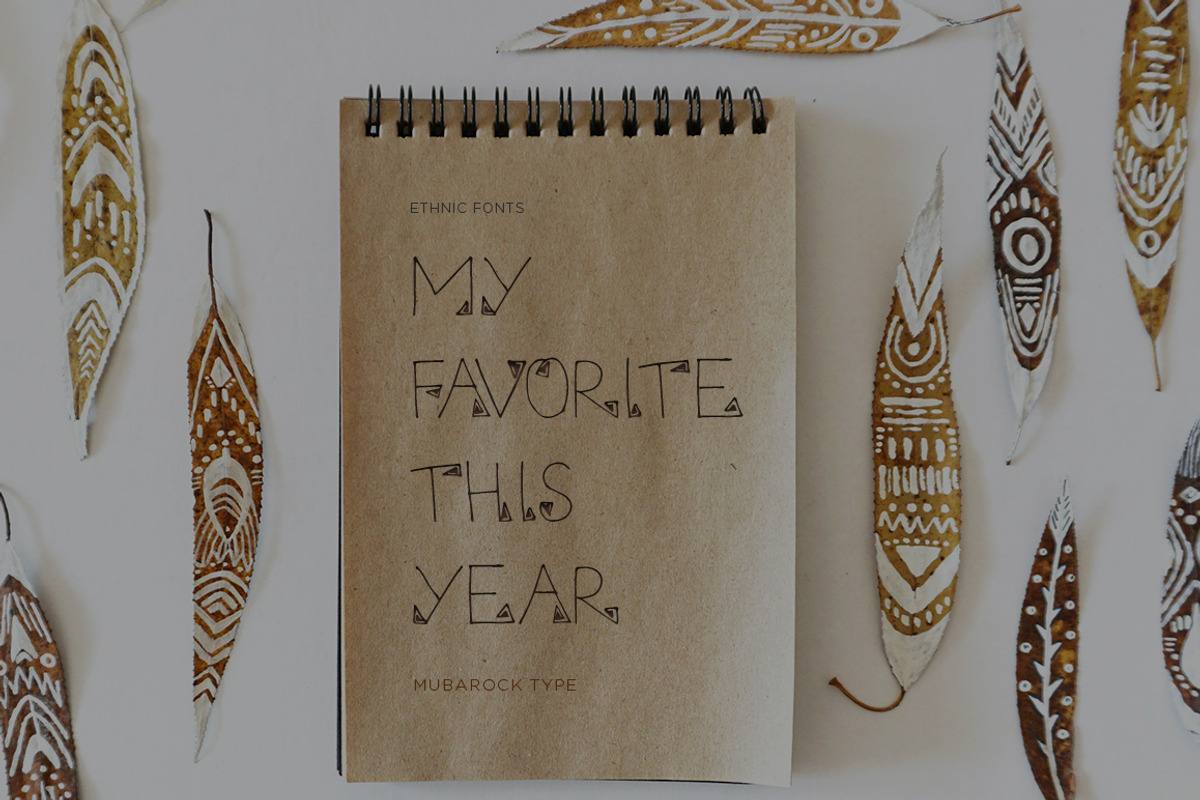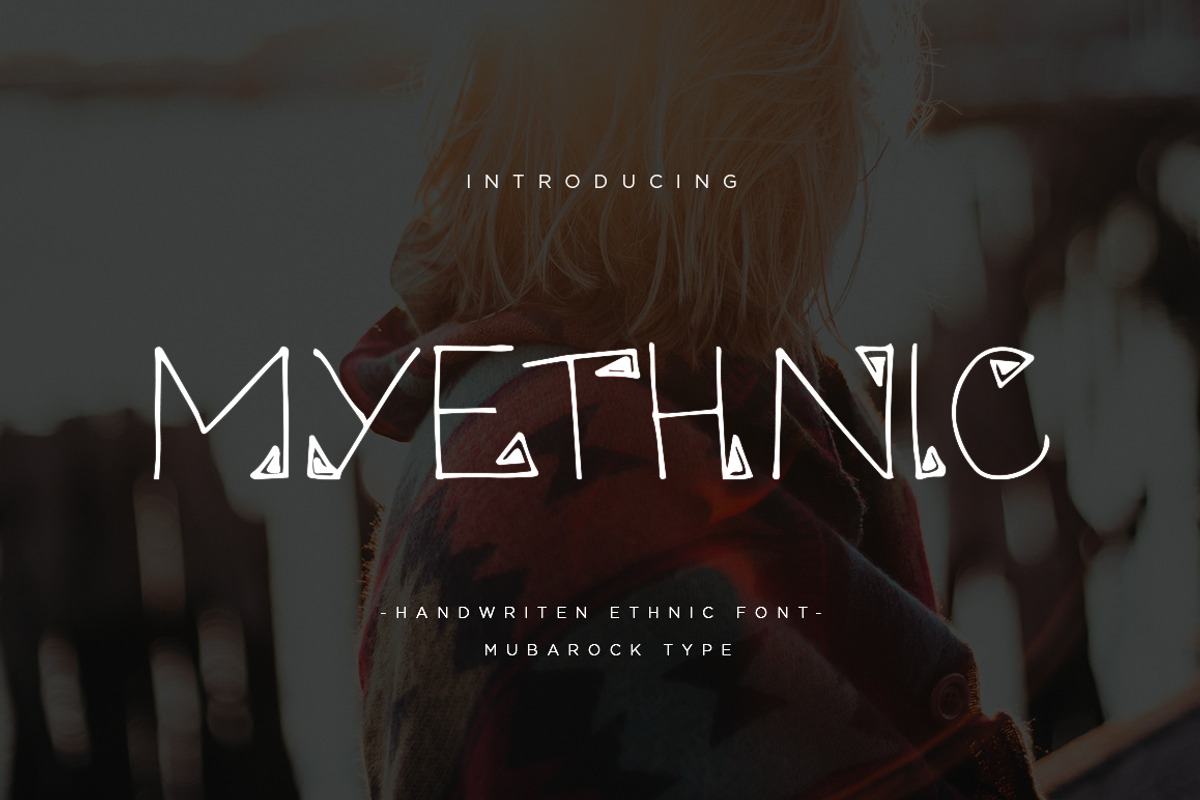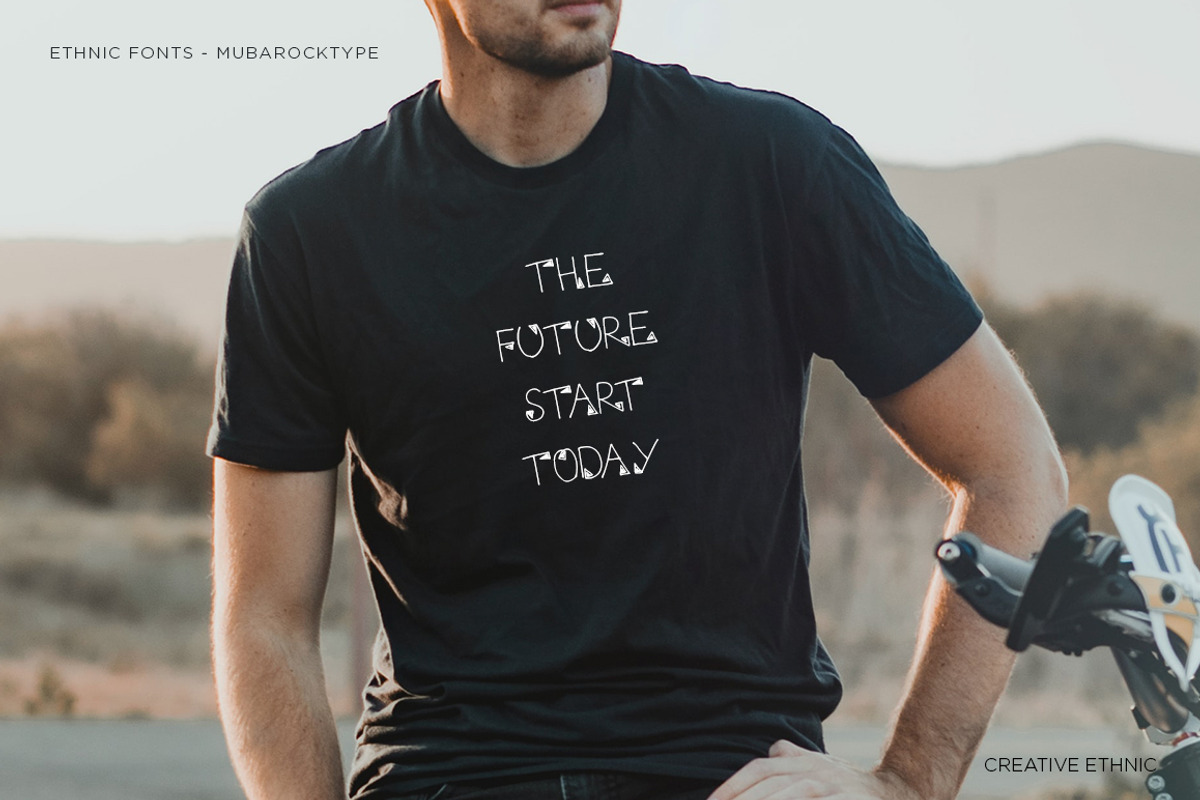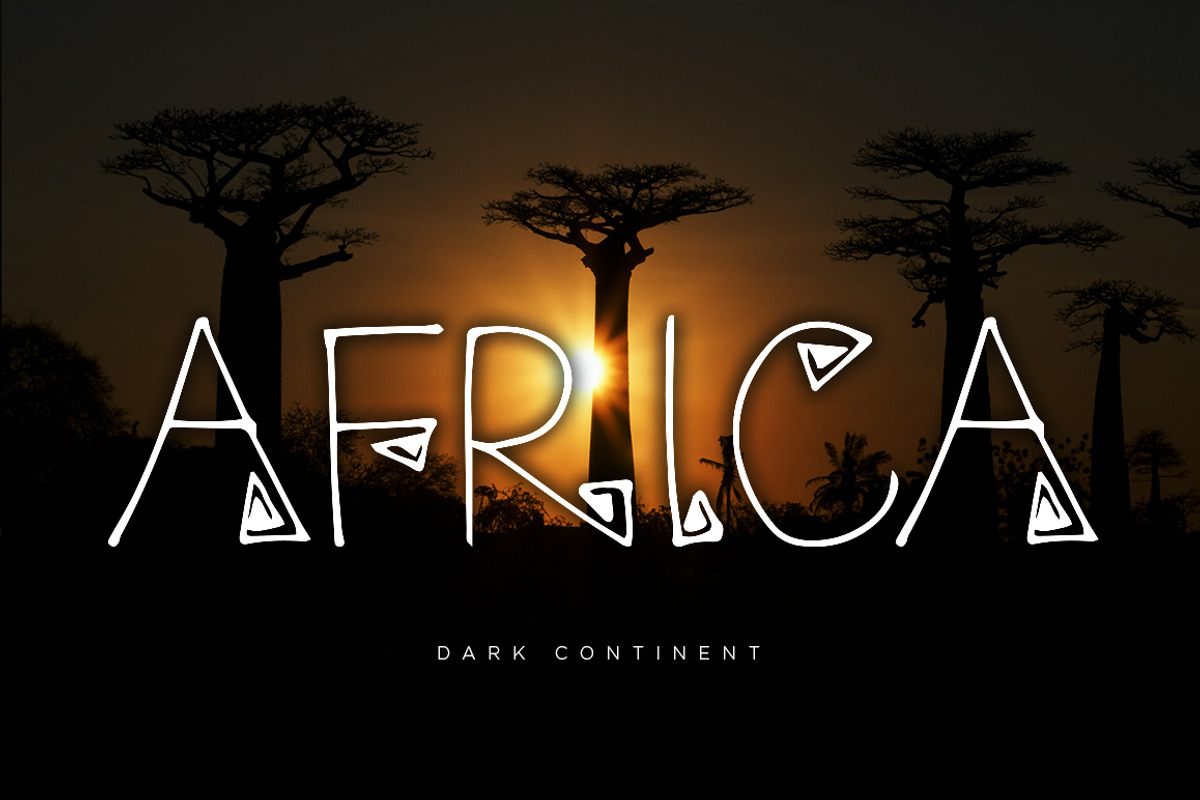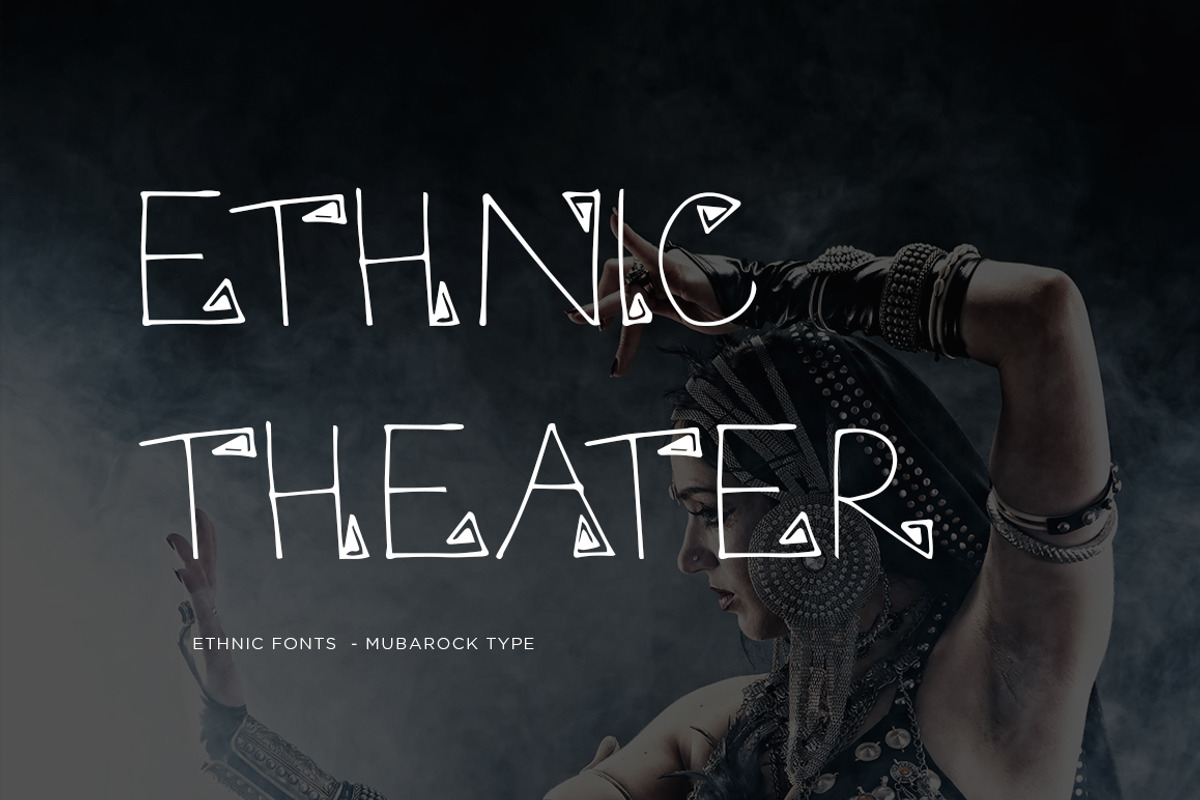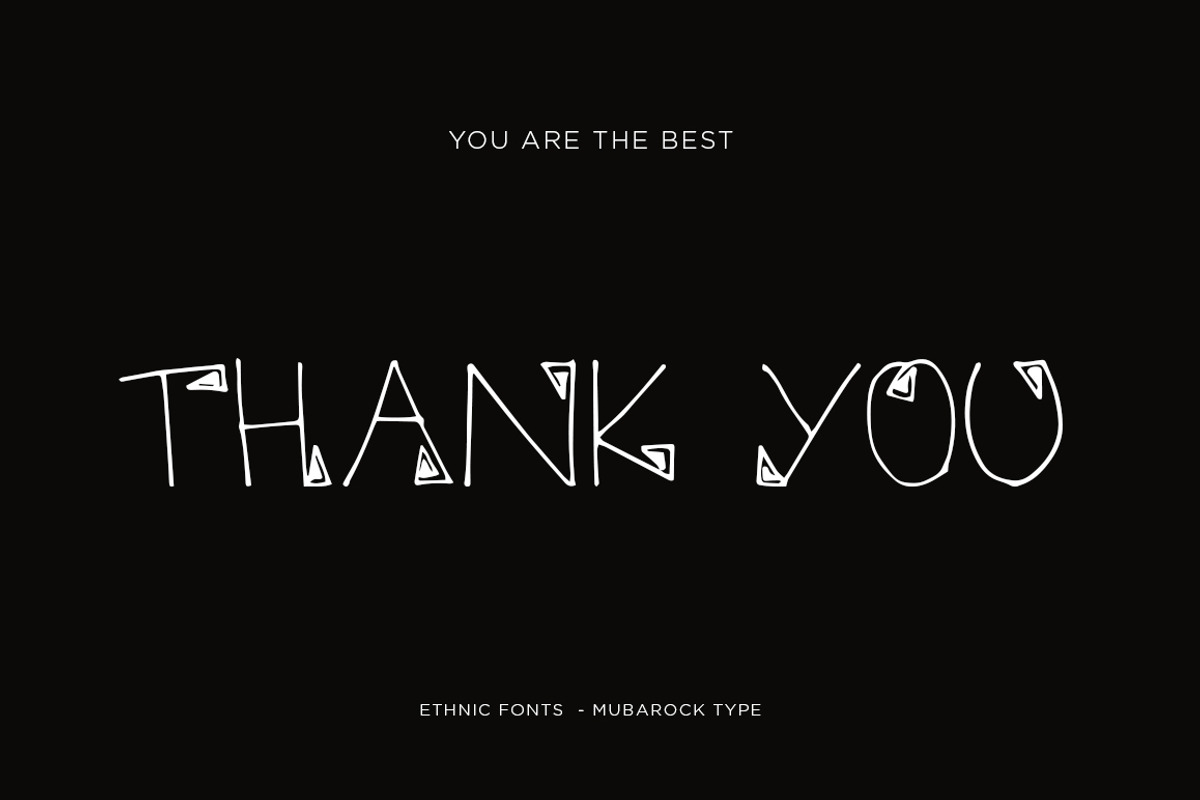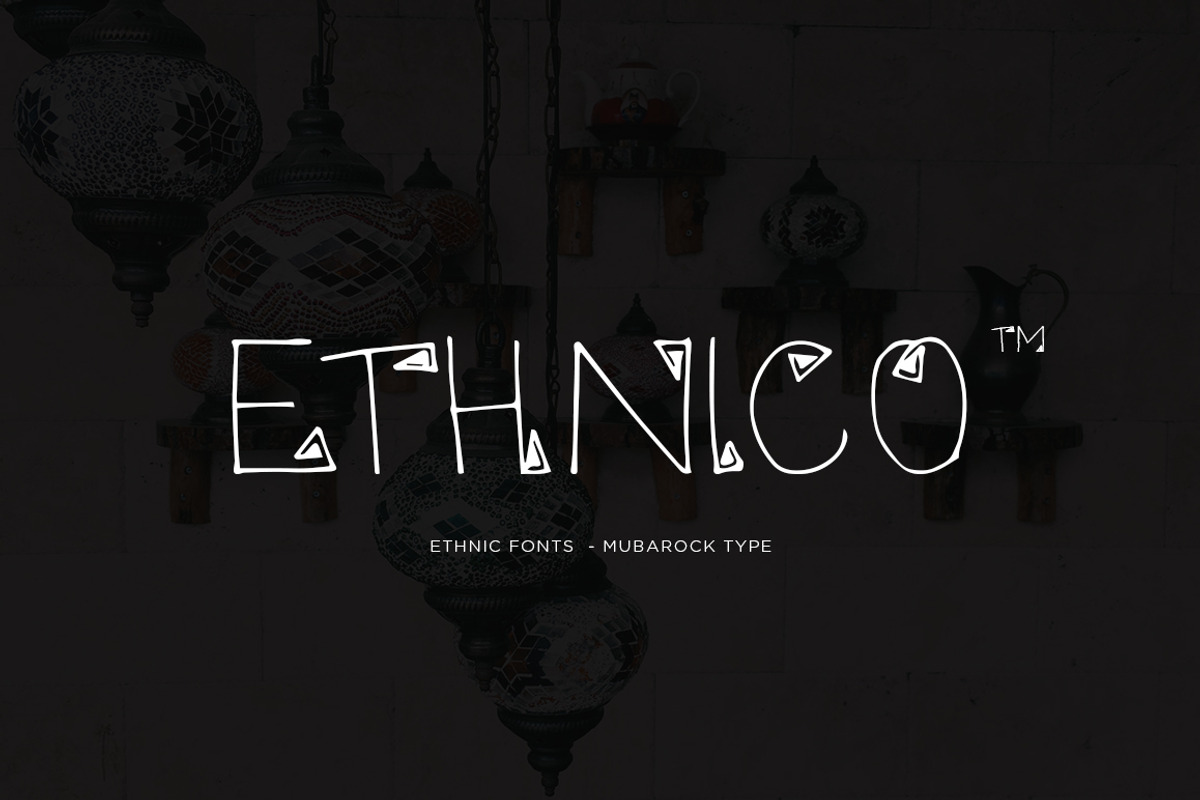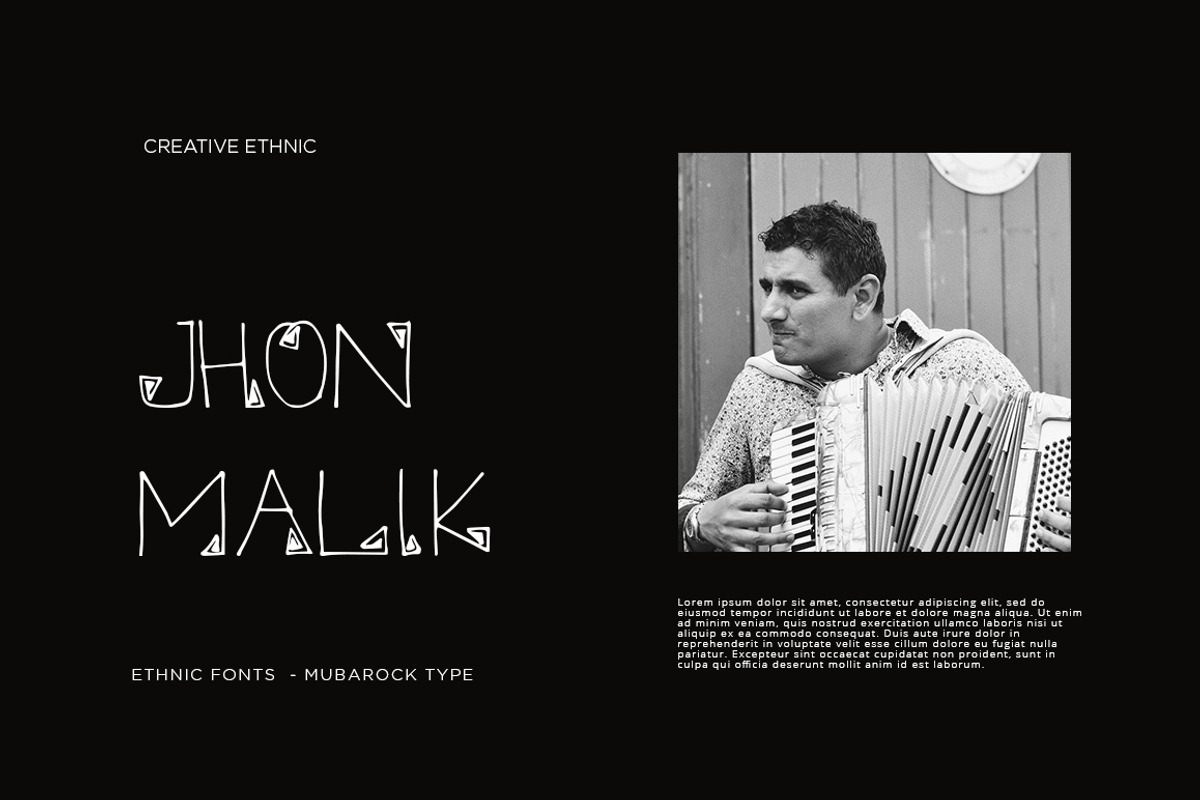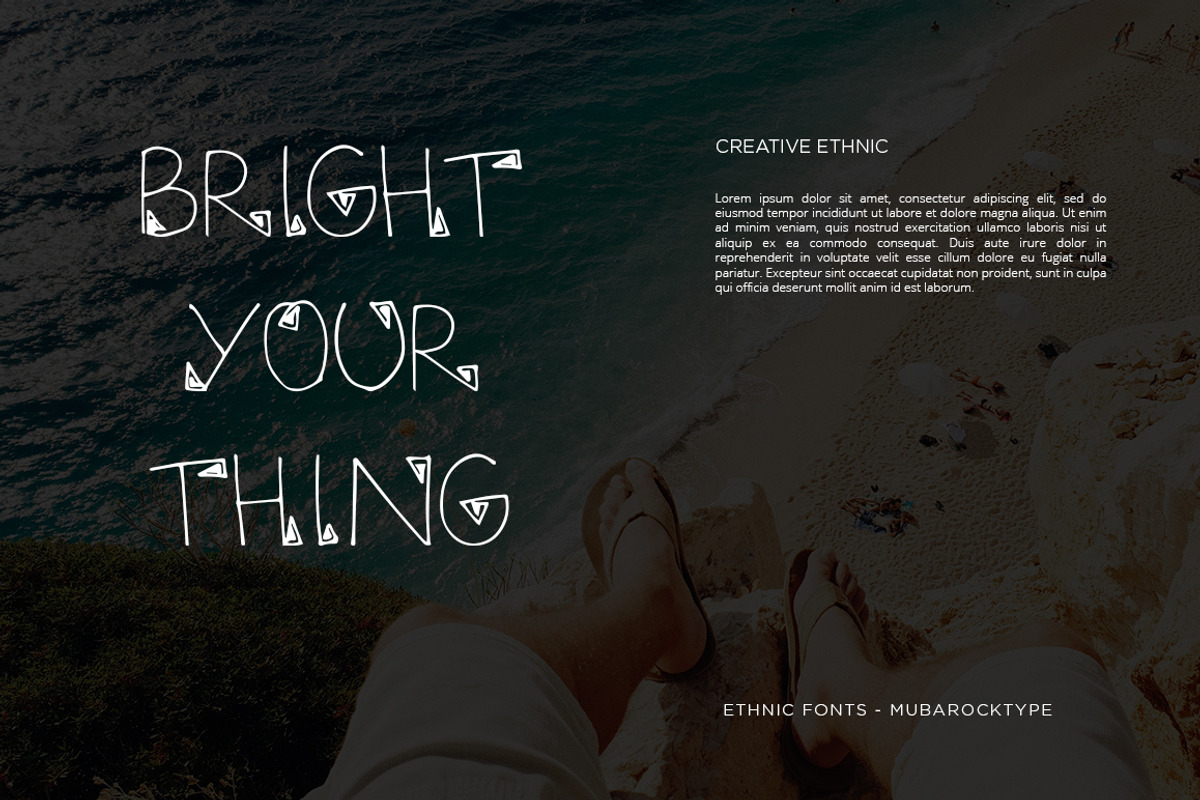
MYETHNIC- Display Font Ethnic
Introducing 'MYETHNIC' a tribal display font. Inspired by ethnic and tribe ornaments. All caps font with thin strokes that very recommended for headline or display on a traditional themes.
Suitable for your design such as poster, flyer, t-shirt design, logo, magazine, signage, or billboard. Afolkalips is a minimalist-joyful font which is flexible to apply in bright theme or elegant style.